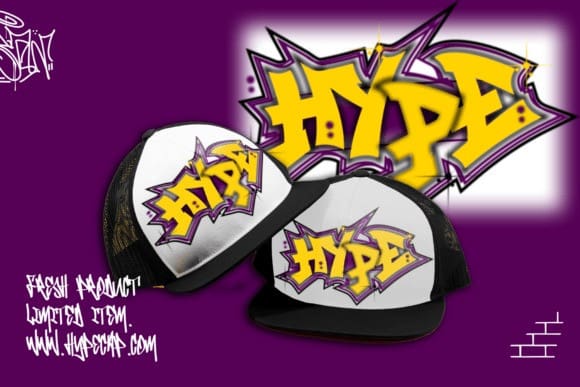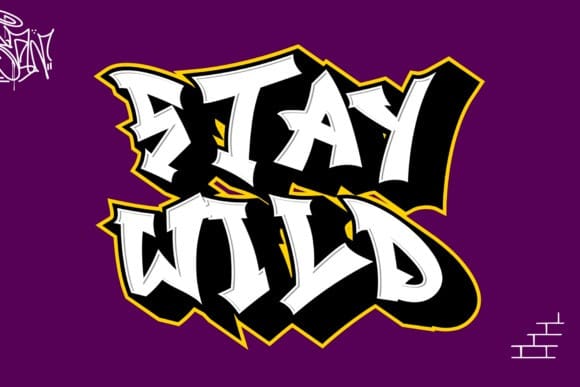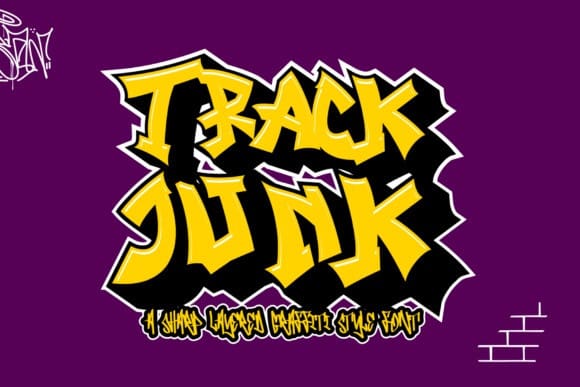
Track Junk Font
Track Junk Font, a hard-hitting graffiti-inspired font. Sculpted with audacious angles and rugged cuts, its letters vibrate with the daring energy of street art rebellion, ready to breathe life into modern design projects. This font, with its raw character, comes to life with unique layers from solid to outline to shadow. These aspects combine to craft a versatile 3D effect that propels your art with an undeniable depth and charisma.
Perfectly at home on posters, streetwear branding, soundtrack covers, or any project that channels the spirit of graffiti, Track Junk is a must-have for design rebels seeking to make a bold and unforgettable impression. Whether splashed across digital looms or imprinted on tangible canvas, this font revs up the visual potency of each piece to a fevered intensity, guaranteeing a lasting image laden with urban culture’s dynamic essence. Experience the power of Track Junk, where every letter is a testament to the gritty beauty of the streets.